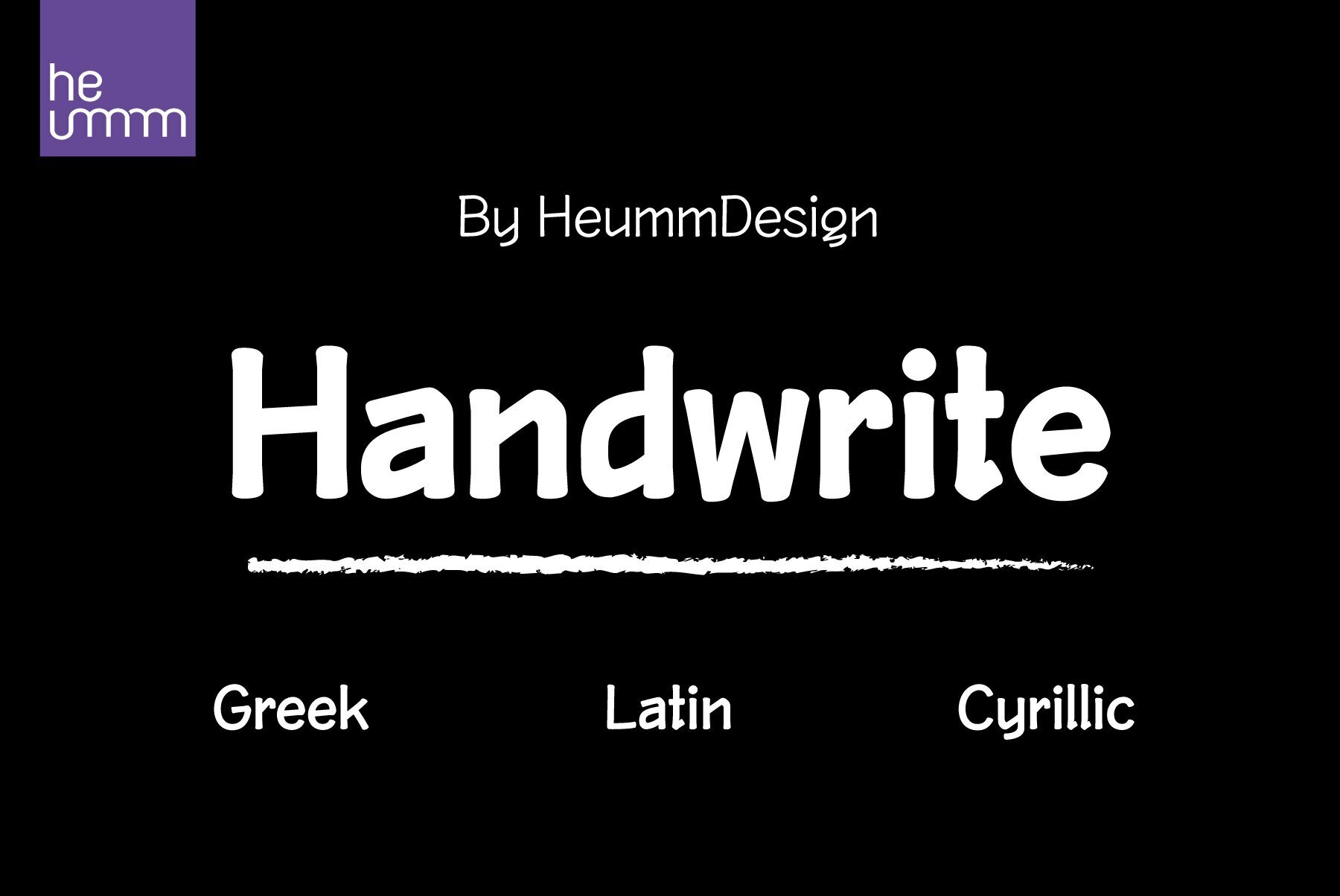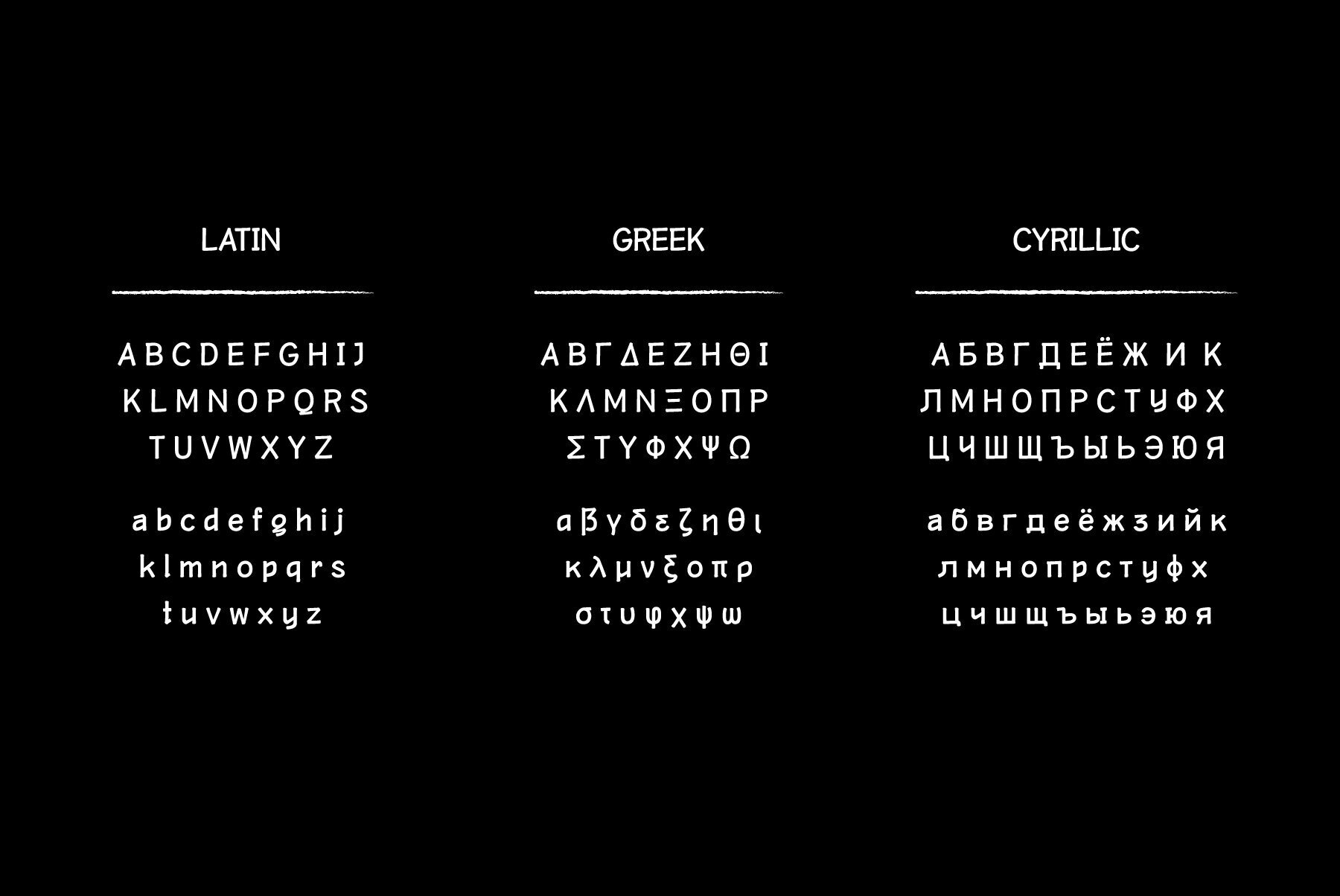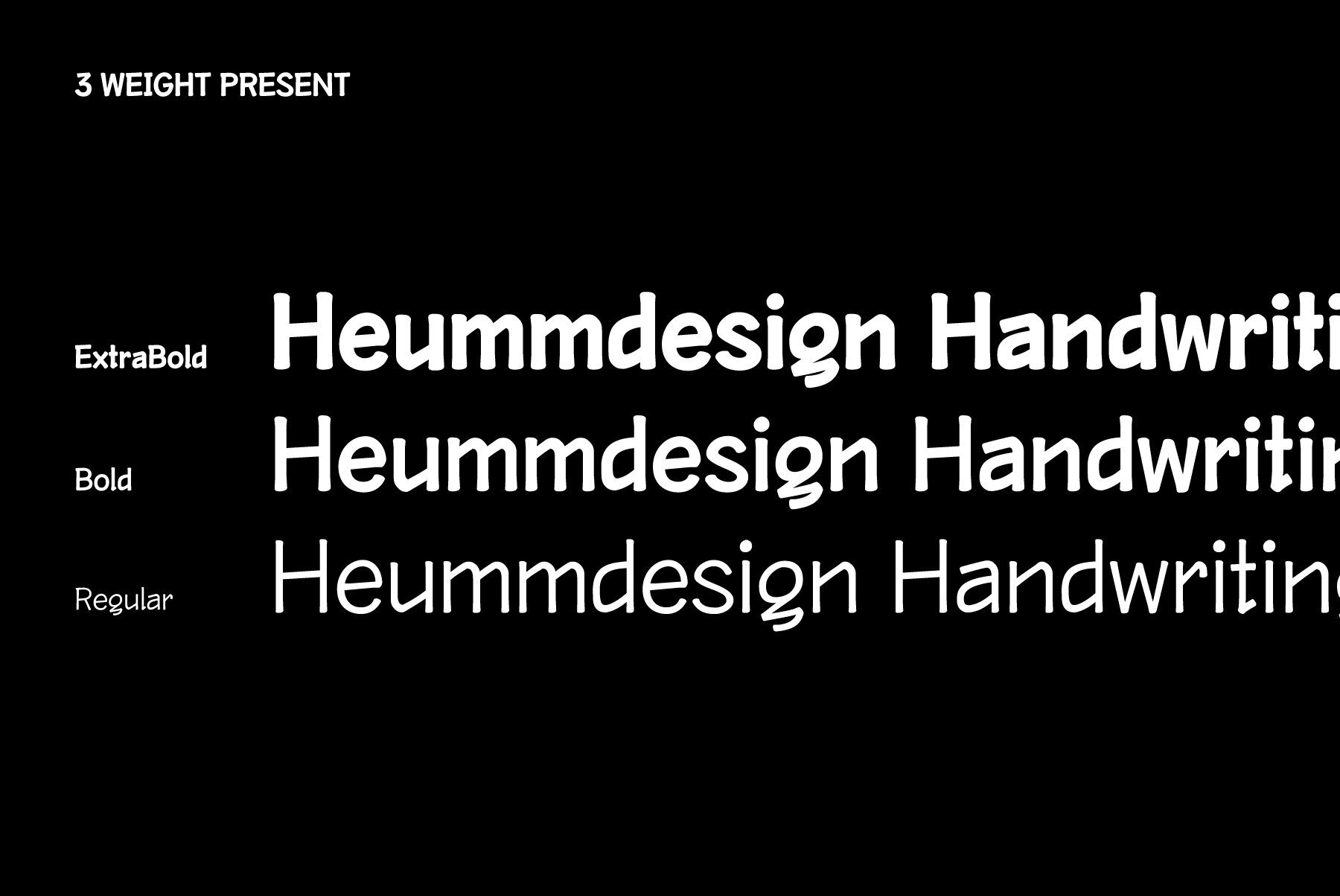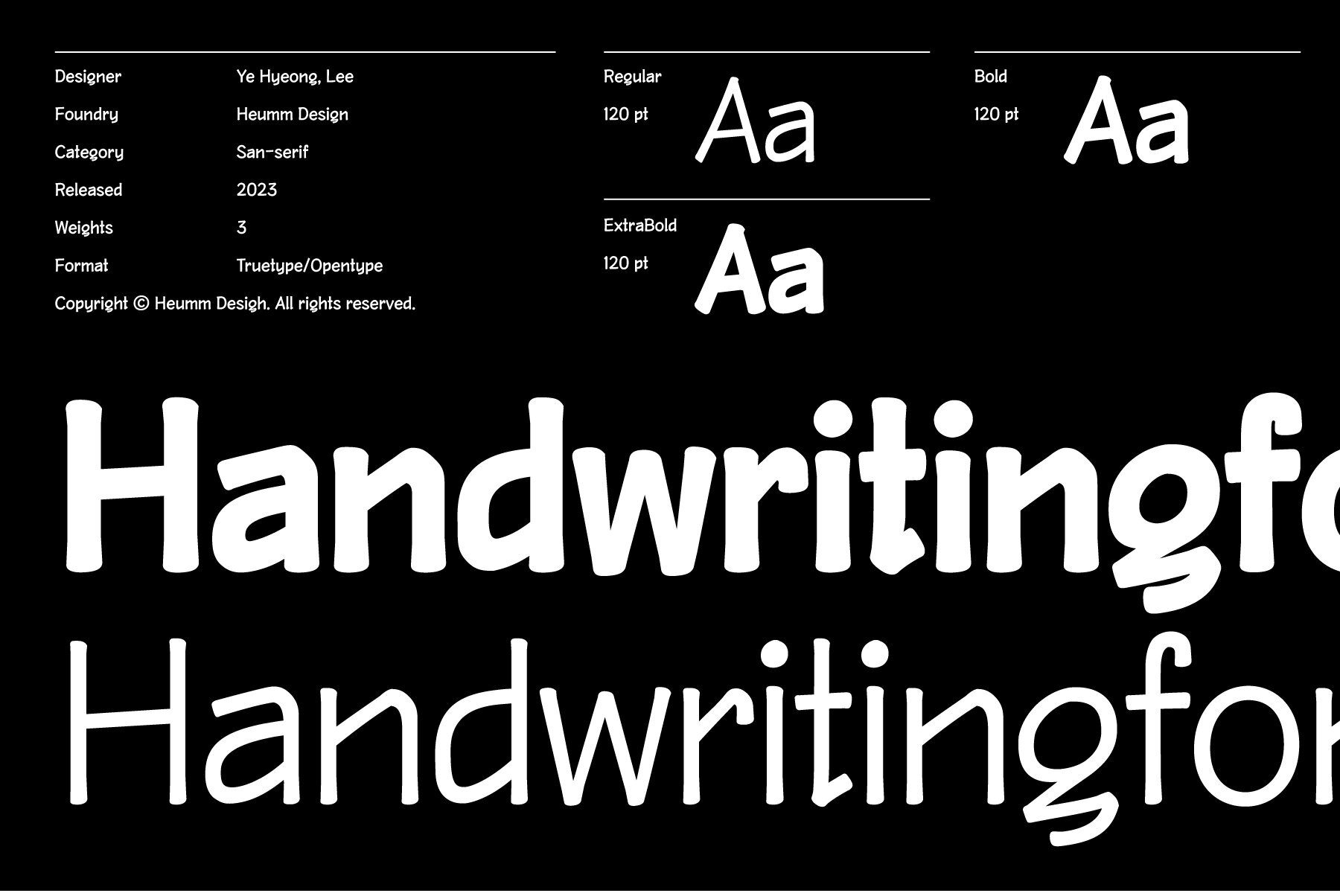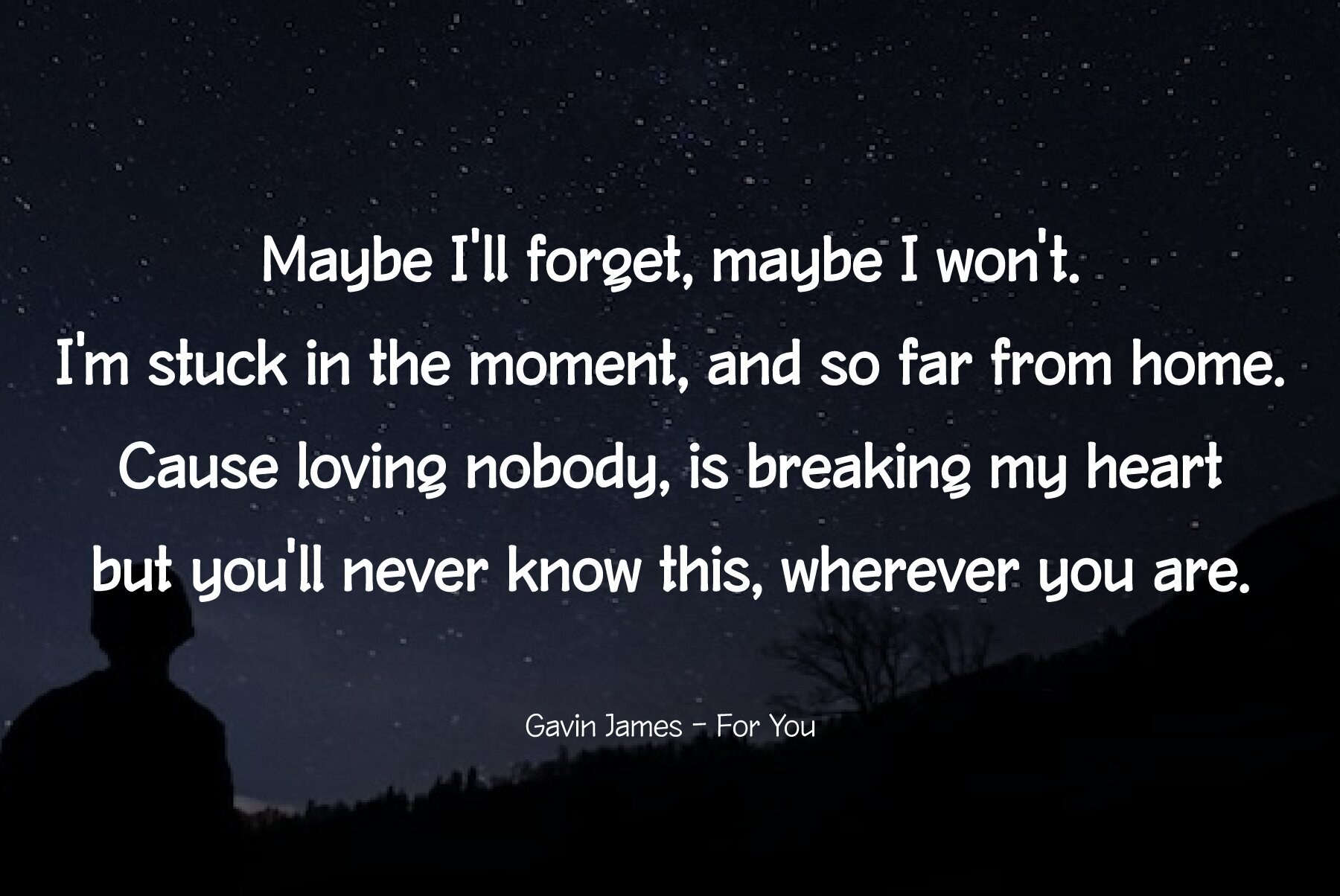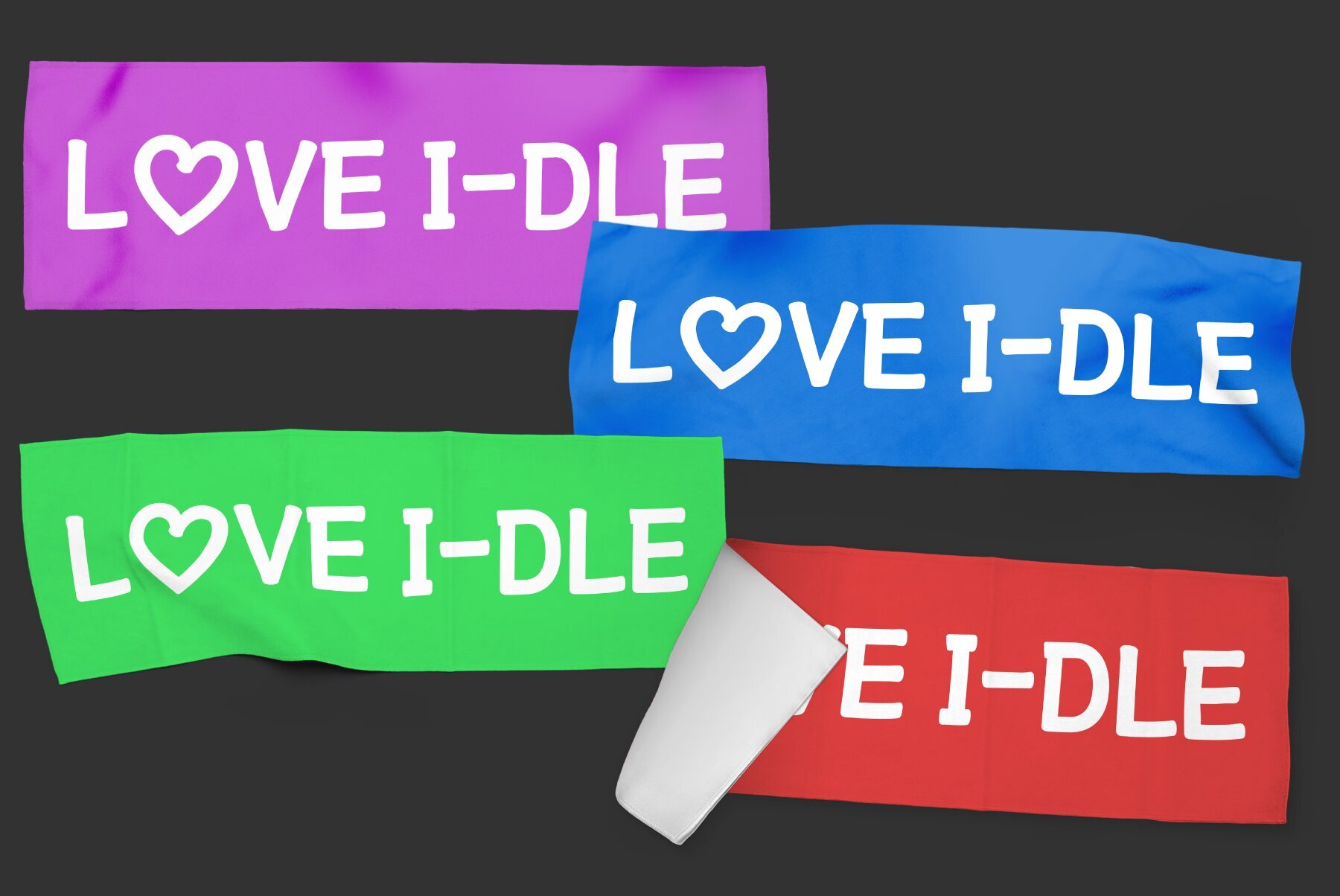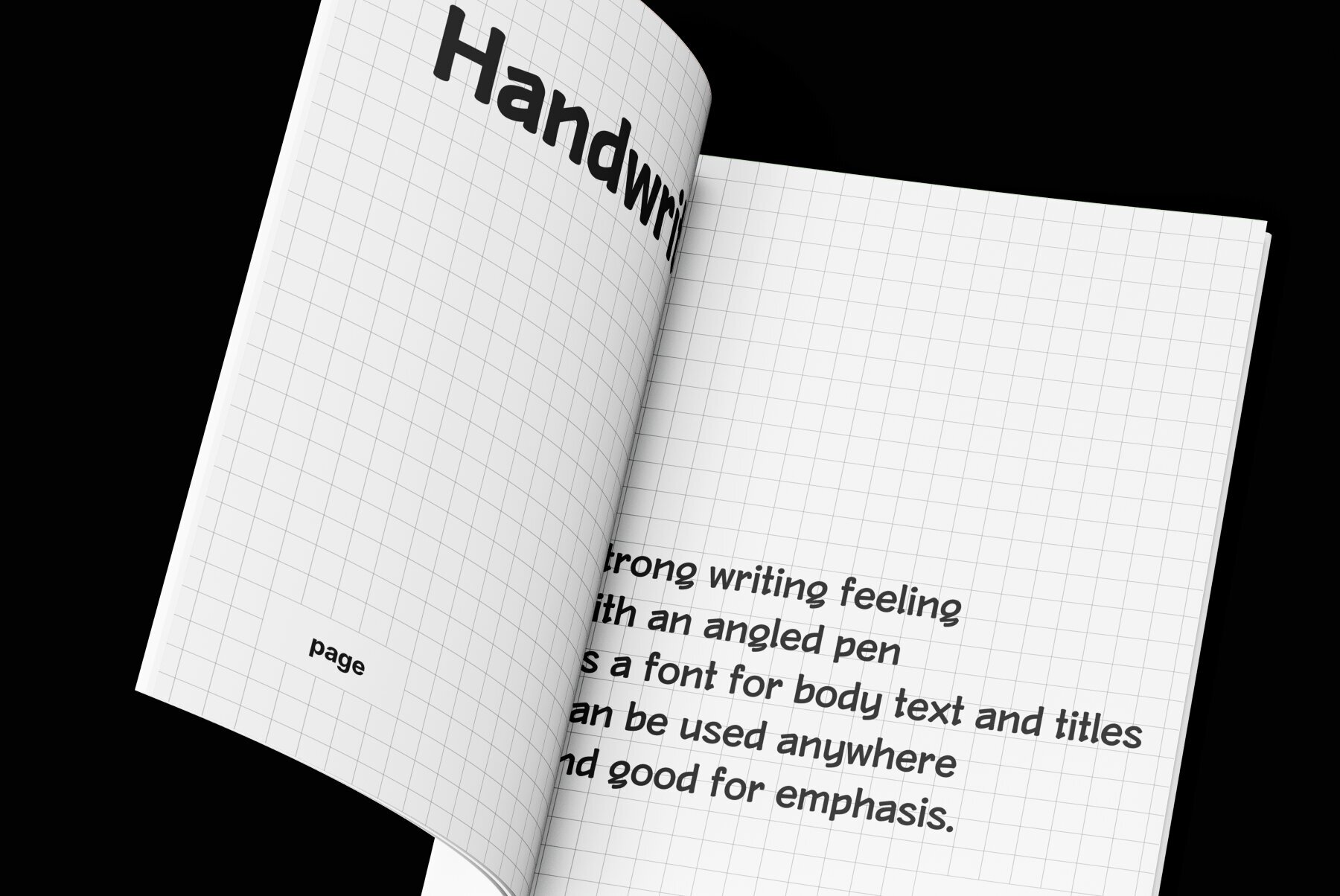
HU Handwrite Font
HU Handwrite KR is a handwriting-style font for body text that emphasizes gentleness and solidity with less curvature and a straighter feel. The personality of the handwriting was added through a style that made use of natural curves and stroke order, softness was added in the form of a gentle curve, and perspective was applied by setting a vanishing point in the lower left corner.